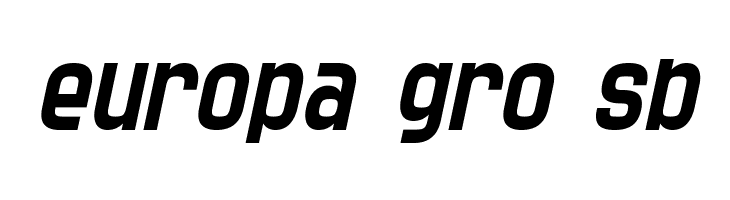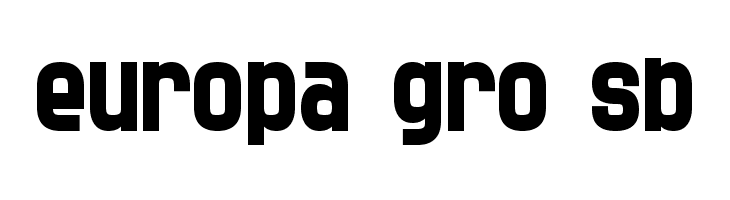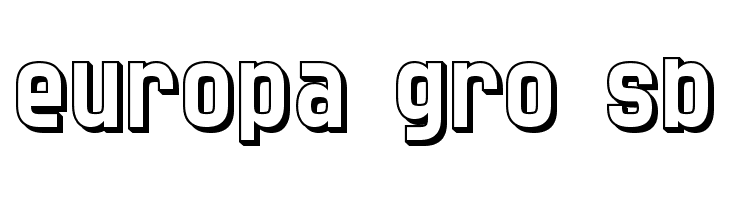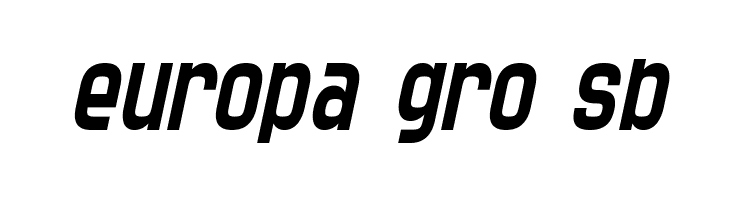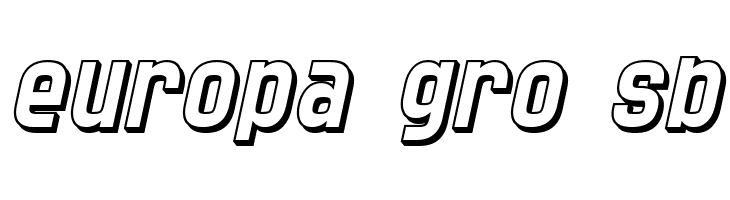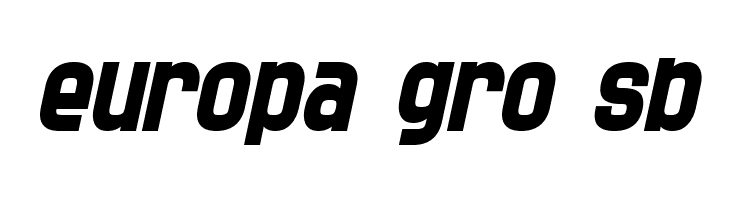
A bold, geometric font with a modern and strong visual impact.
A bold, modern sans-serif font with strong, uniform strokes.
A bold, oblique font with a dynamic and modern industrial style.
A bold, angular font with a strong geometric influence.
A bold, geometric font with a modern and uniform design.